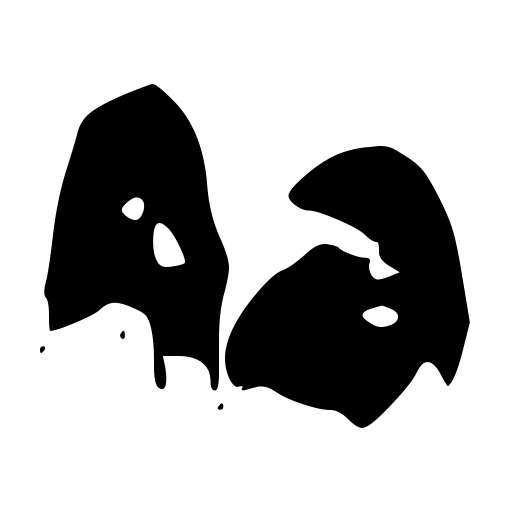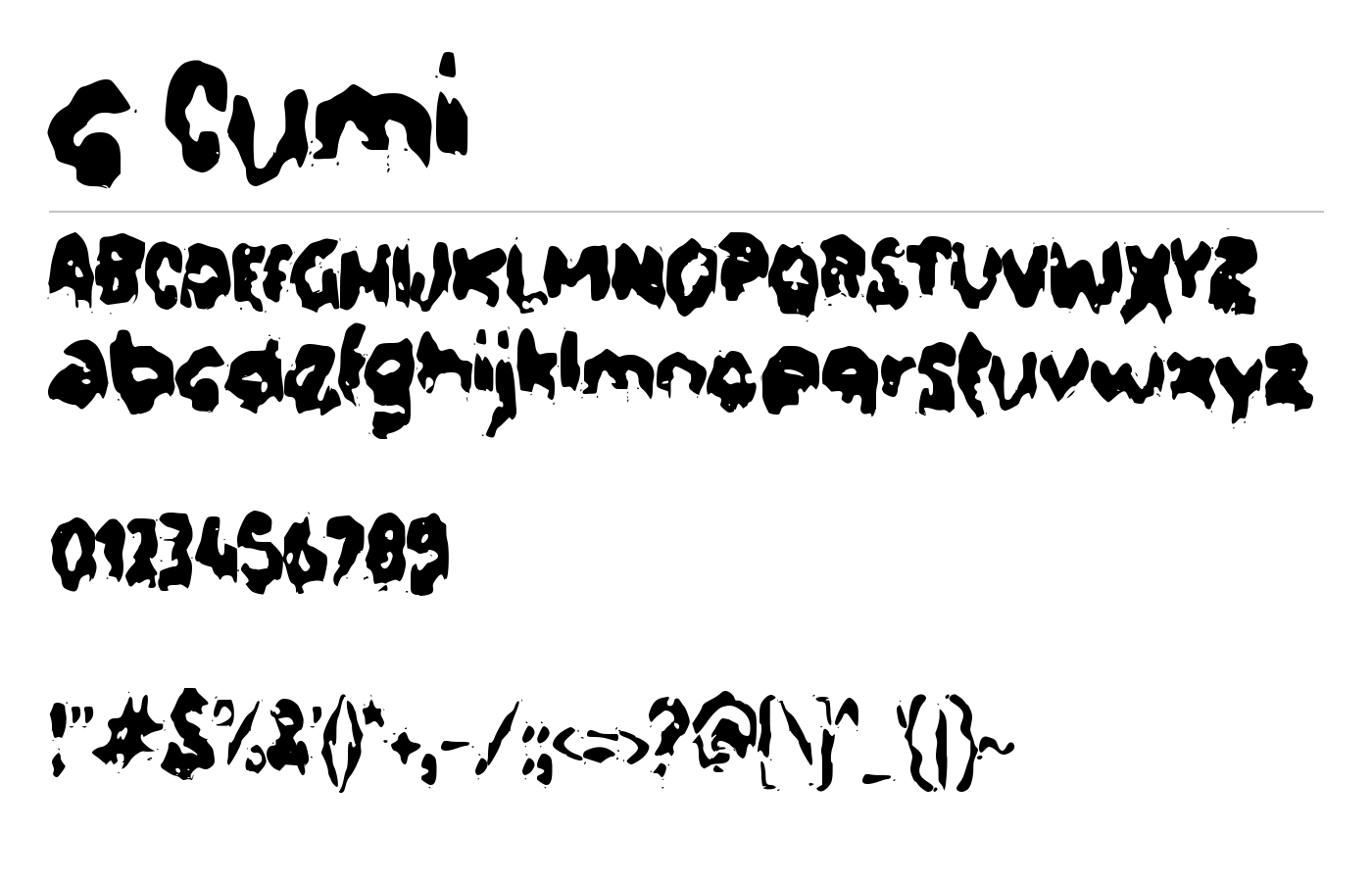
C Cumi is a bold, playful display font with a unique, irregular texture that resembles dripping or splattered ink. Its chunky, organic letterforms exude a quirky, slightly eerie vibe, making it ideal for creative projects that want to stand out with a fun, unconventional style. This font works best in posters, logos, or themed designs where a strong, artistic impact is desired.
c Cumi Font
About c Cumi Font